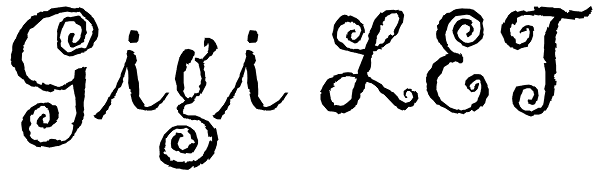
Gigi
Gigi's chic, informal style features an abundance of flourishes and swirls that give it a charming and spontaneous handwritten quality. Tight curlicues on many of the letters, particularly the capitals, are reminiscent of a Parisian schoolgirl's...